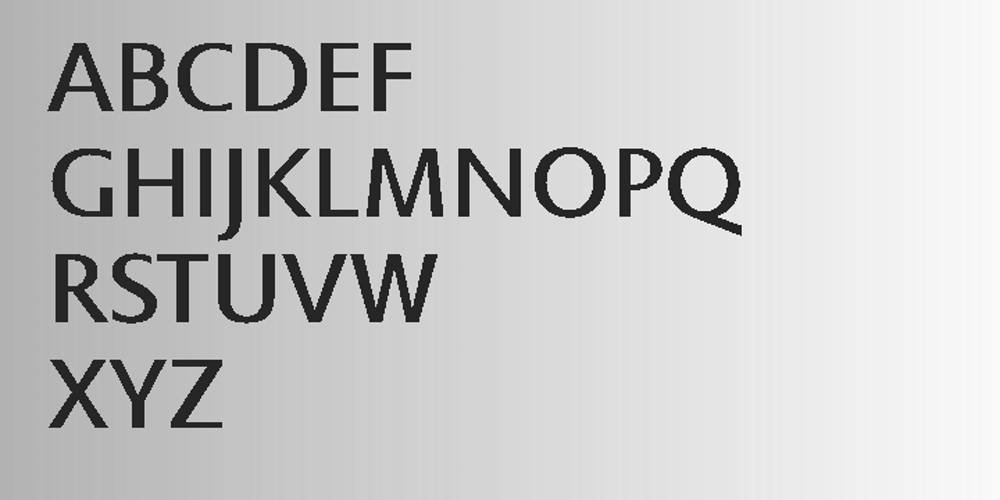
Solaris Font Family was designed by Finn Sködt and published by Ultramarin. Solaris contains 2 styles and family package options. Solaris is a sans serif or a grotesque as we still call it where I come from. (it is an old term which means strange compared with Roman which was the normal font) The face is an open sans, which means that the round signs take the air into the form, minuscule d is drawn kind of backwards like in Gill Sans, which sets off on minuskel a. Here is the Regular version, with a slightly difference between stems and hairlines.